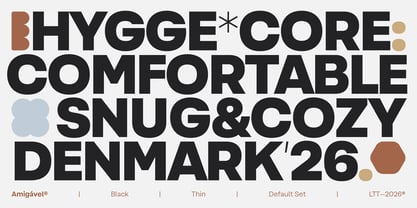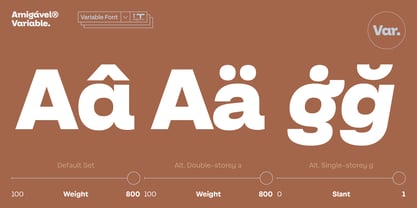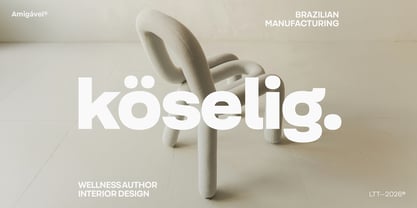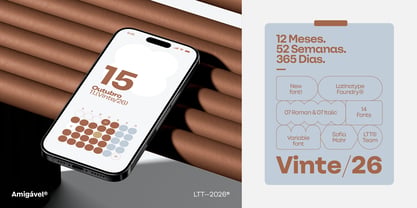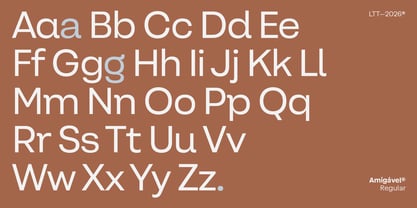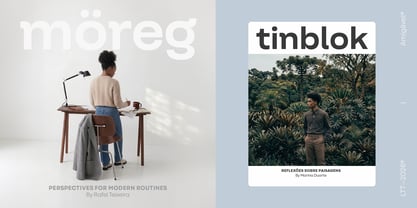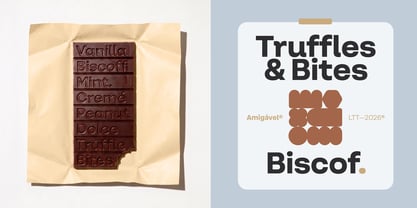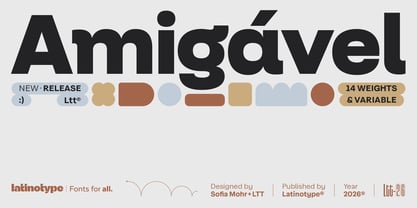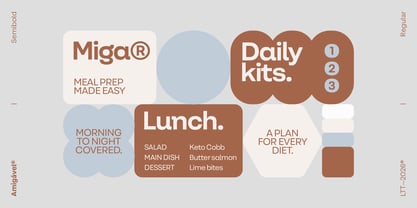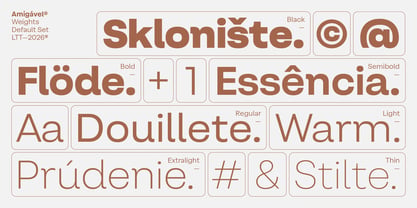
Amigável
The Amigável Font Family was designed by Sofia Mohr, Latinotype Team and published by Latinotype. Amigável contains 15 styles and family package options. More about this family
Amigável is a contemporary geometric sans designed to bring warmth, clarity, and confidence to everyday communication. Built on a precise geometric foundation, it balances structured forms with softened details, generous proportions, and subtle optical refinements, creating a voice that feels approachable, refined, and quietly distinctive.
Its clean, contemporary shapes give the family a confident architectural presence, while carefully crafted curves preserve the warmth and friendliness that inspired its name. Stylistic alternates — including both single-storey and double-storey forms of a and g — allow designers to shift effortlessly between a more expressive personality and a more conventional tone depending on the project.
A generous x-height, open counters, and low contrast ensure excellent readability across a wide range of sizes, from interface design and editorial layouts to branding, packaging, signage, and digital products. The family includes seven weights, matching italics, and a Variable Font — a complete system for projects that demand both range and consistency.
Precise geometry. Friendly character.